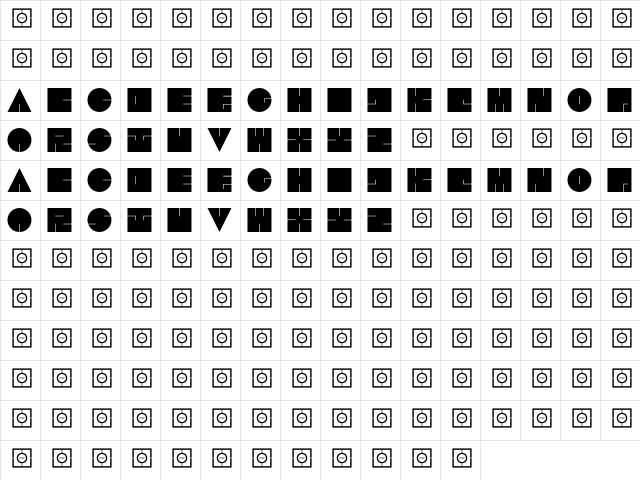
AlphaBloc Sculpture
Design Context for AlphaBloc Typeface
AlphaBloc is a composed and adaptable typeface that performs quietly and consistently across a wide range of design contexts.